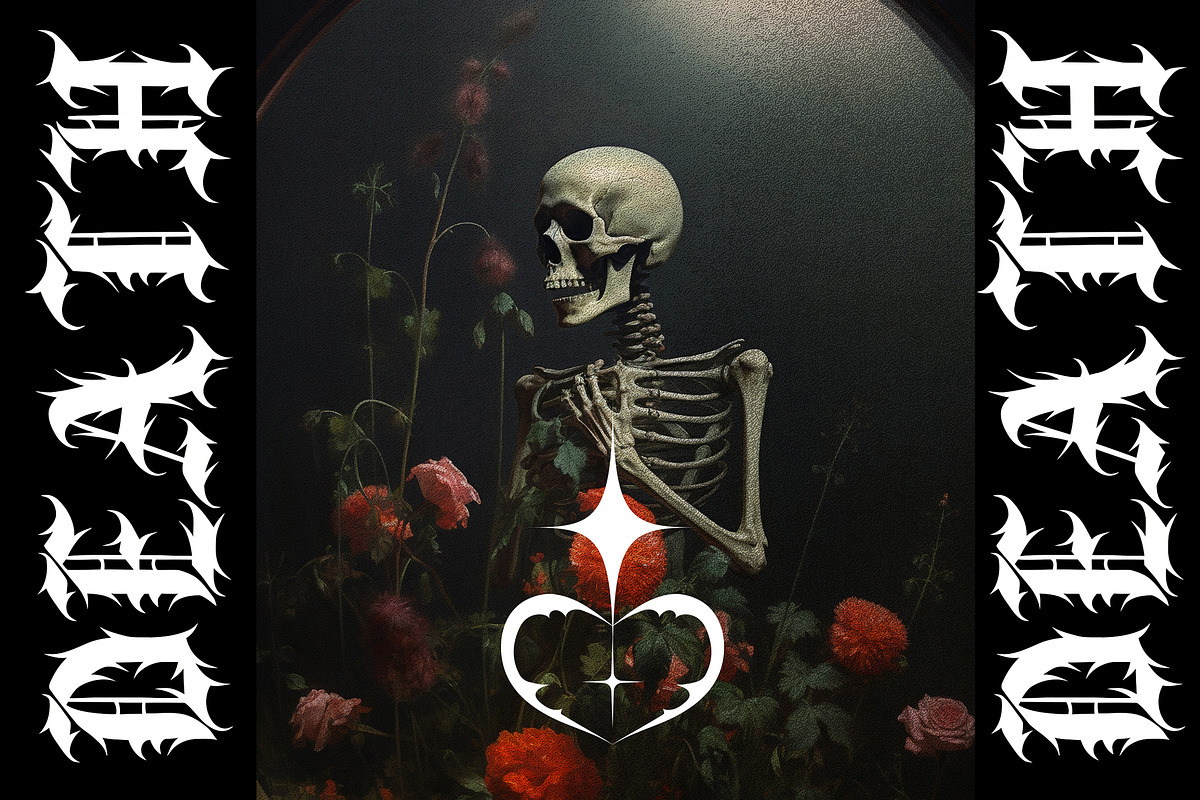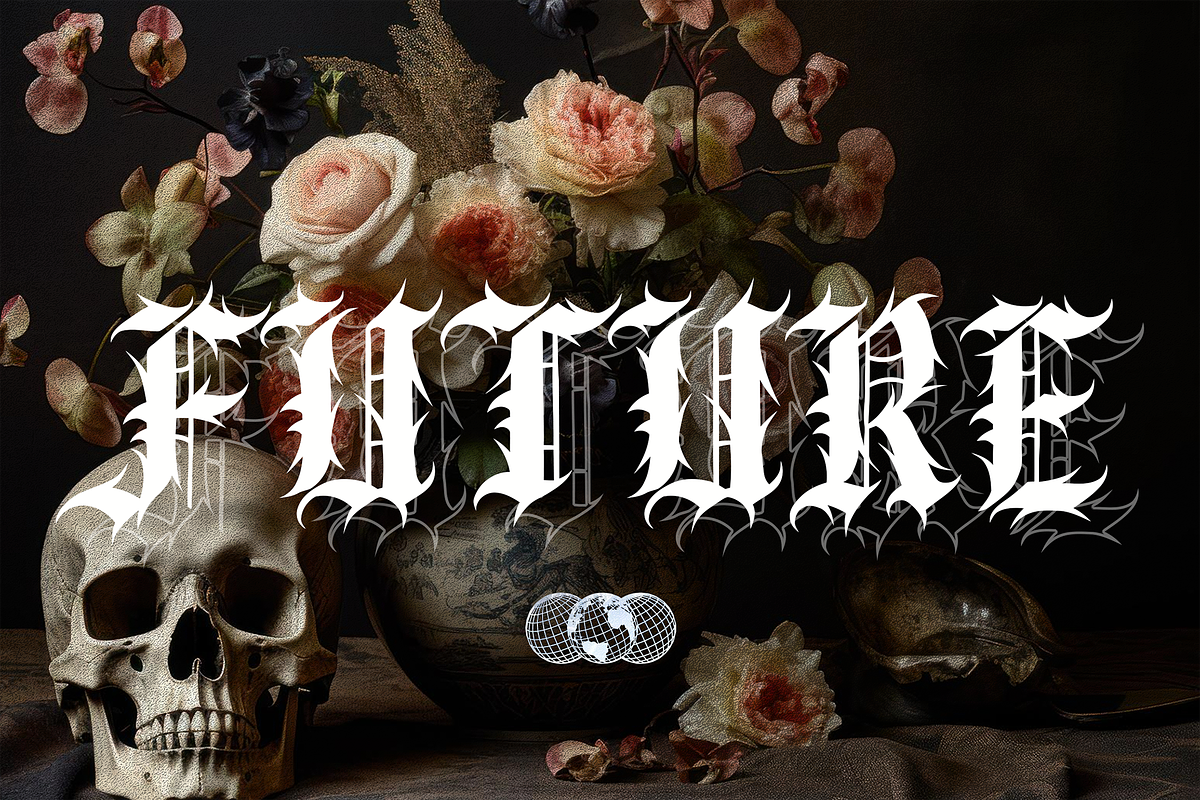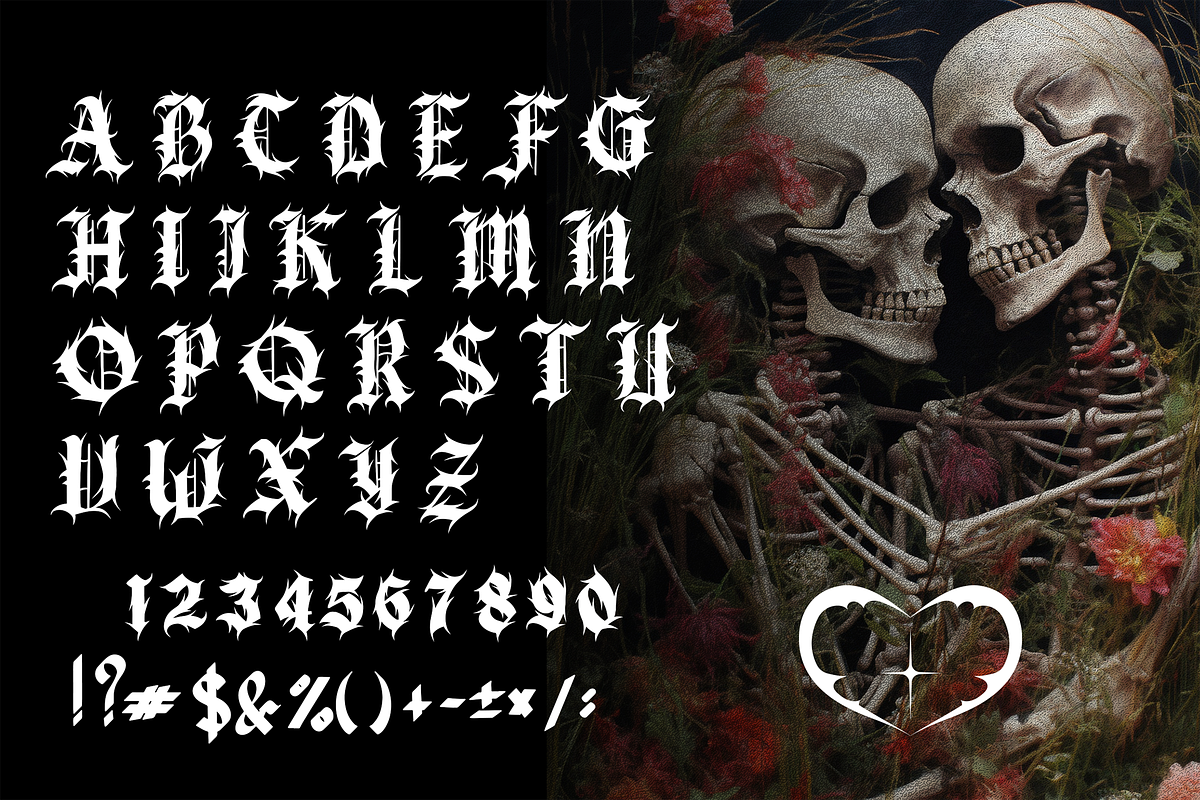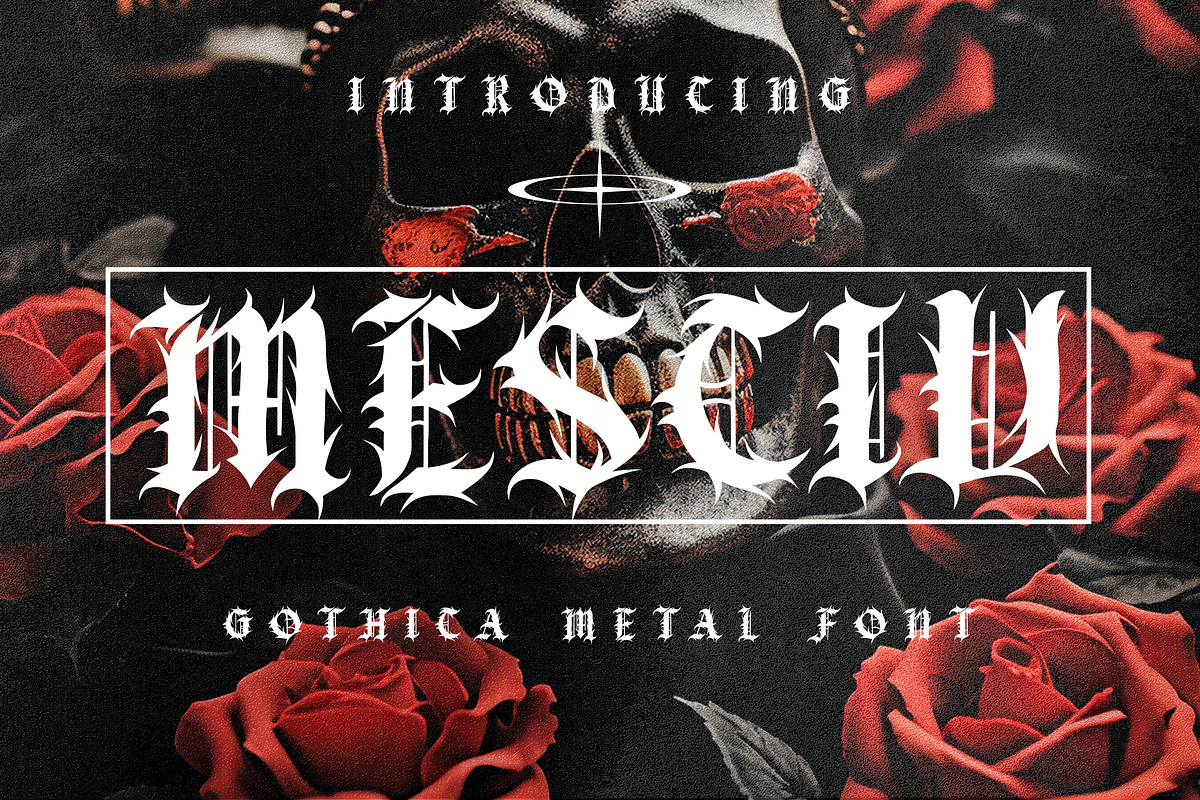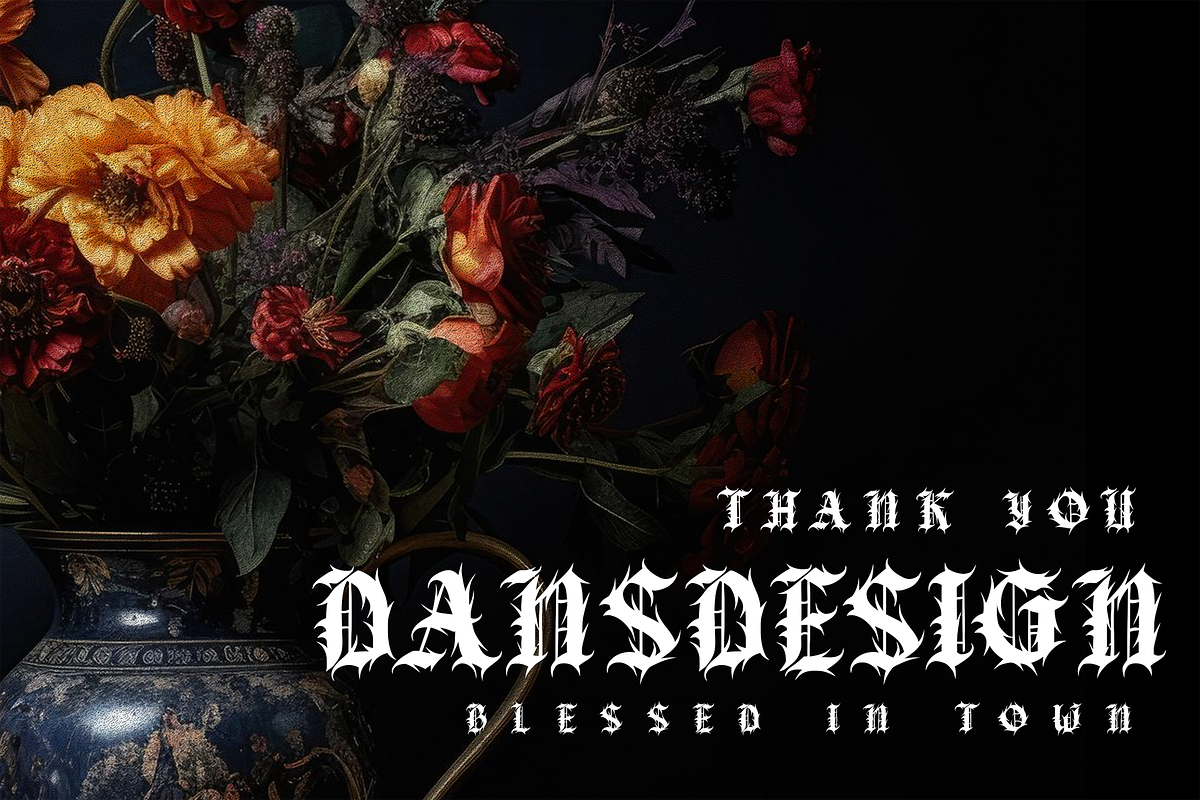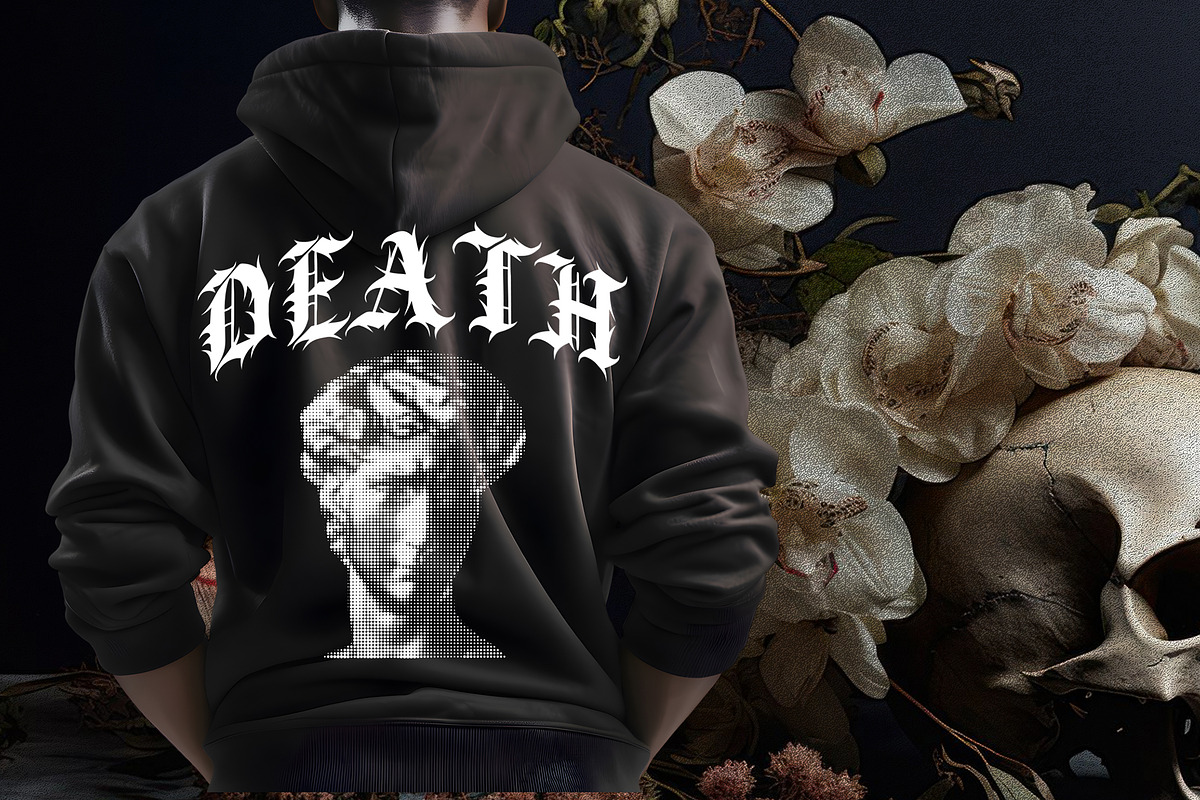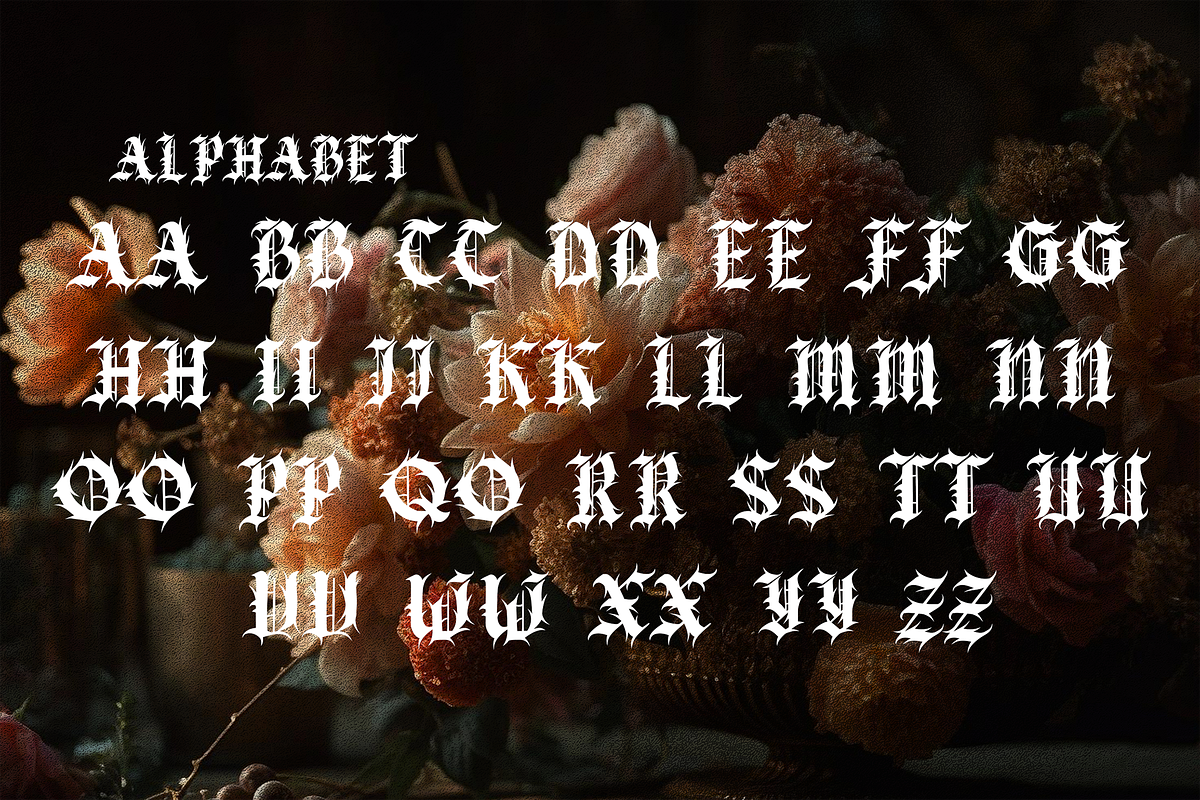
Mesciv Metal Blackletter Font
Mesciv Metal Blackletter Font a distinct, highly detailed, and chic Blackletter font. It would make a great choice for exquisite retro-urban designs, tattoo business branding, logos, vintage designs, movie, poster, apparel, illustration, and more.